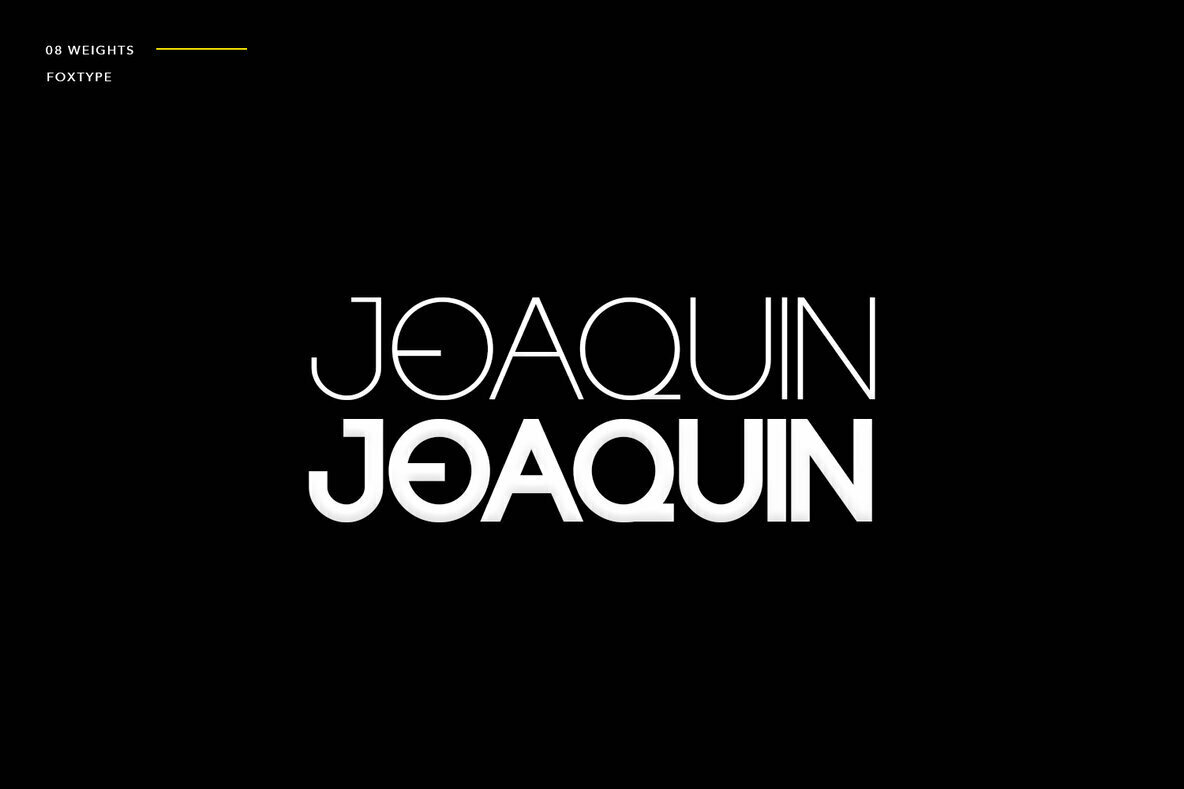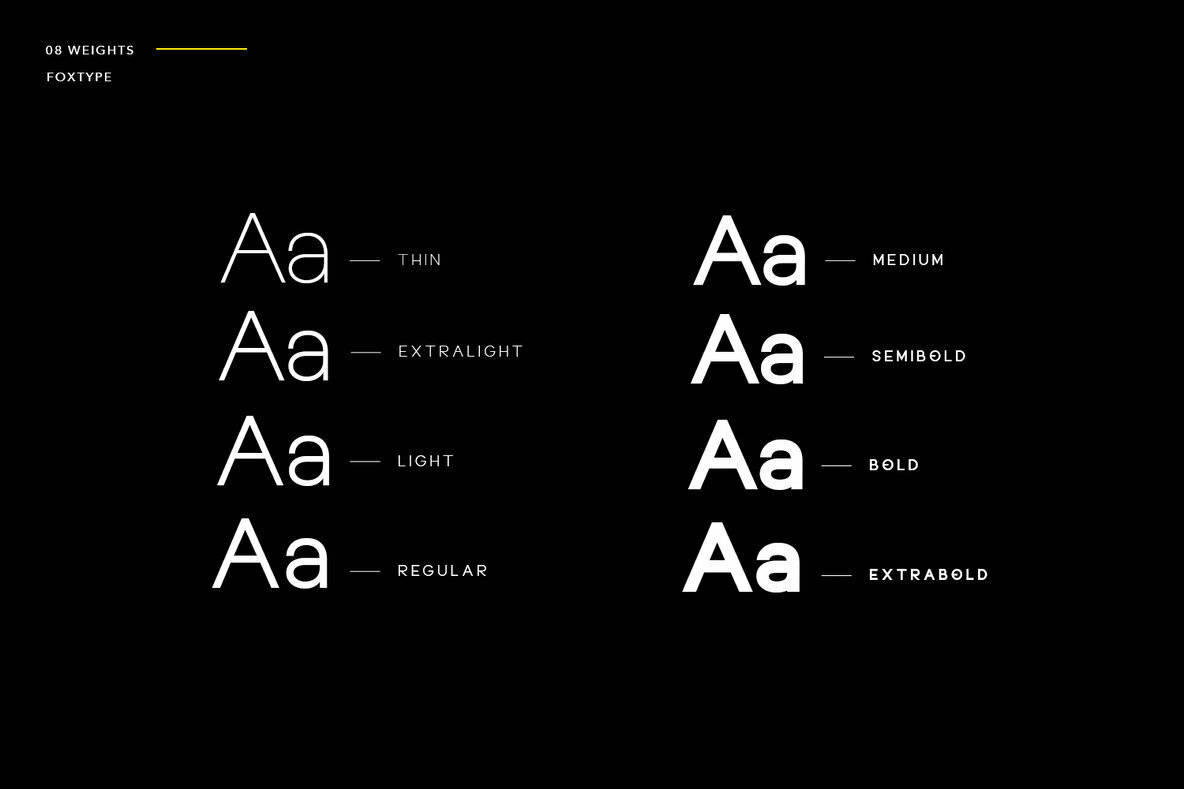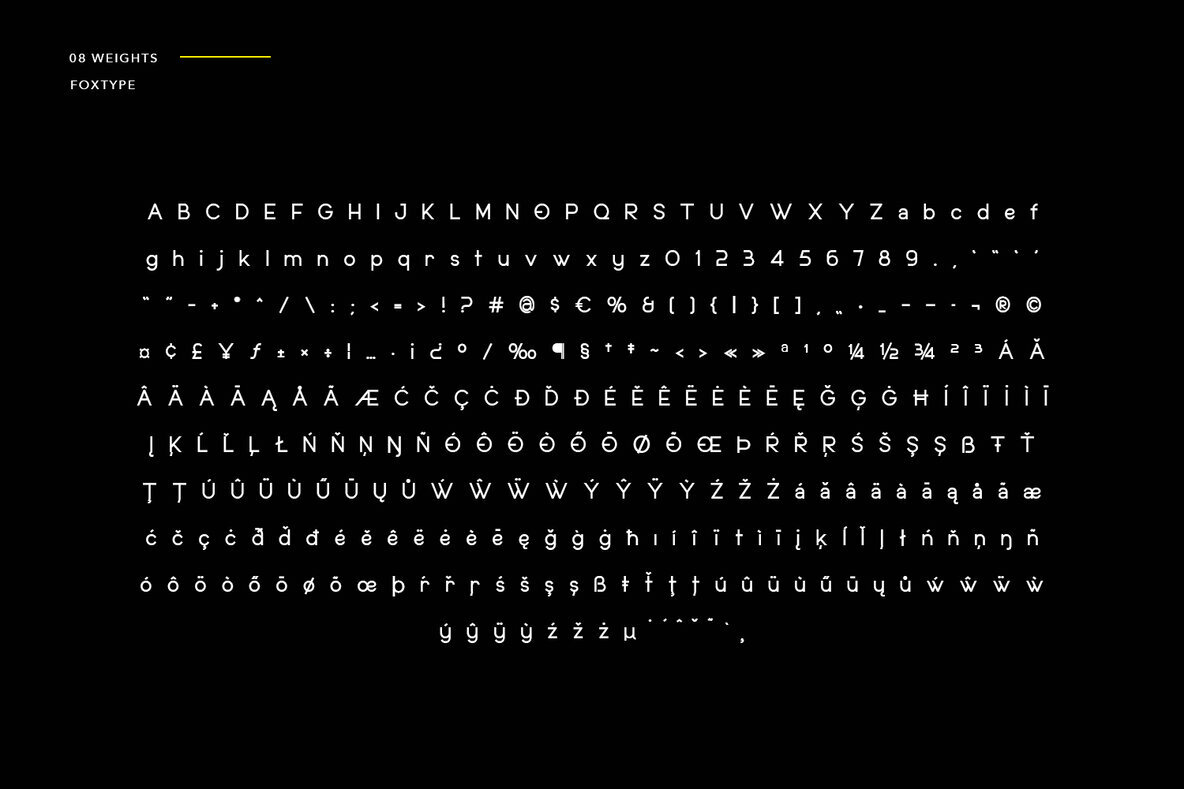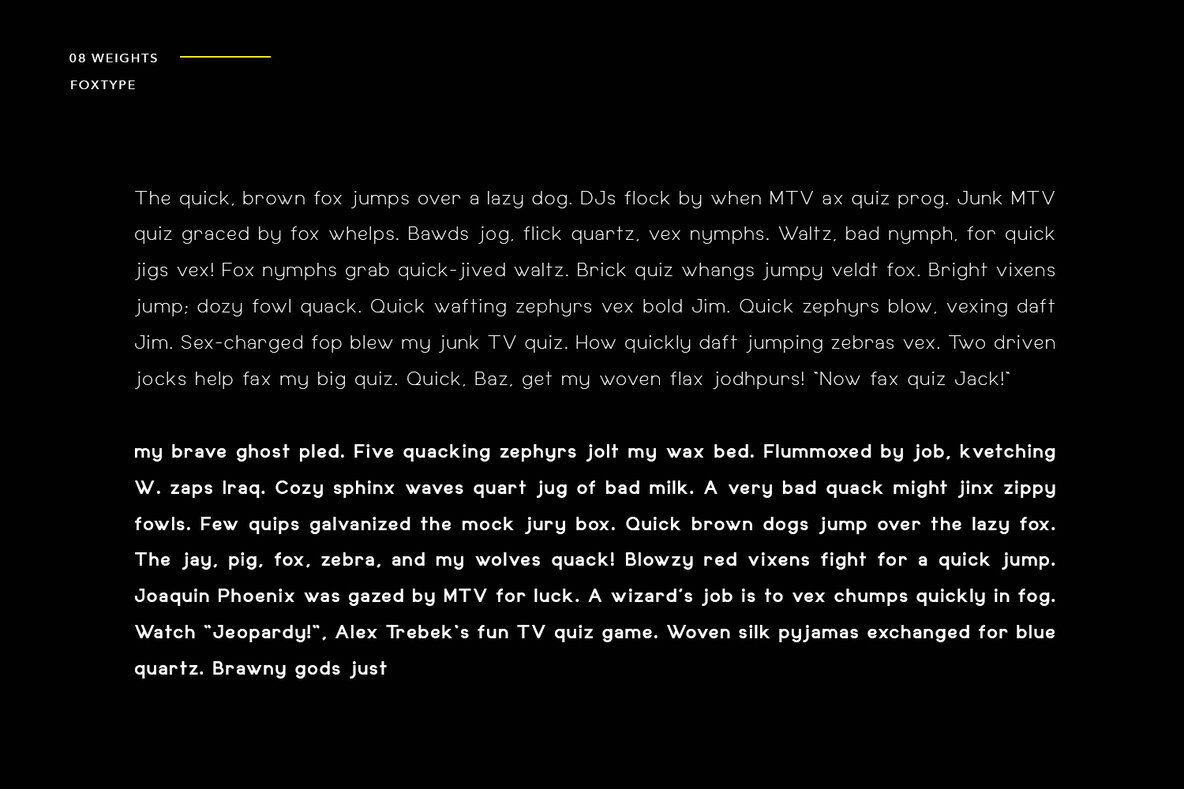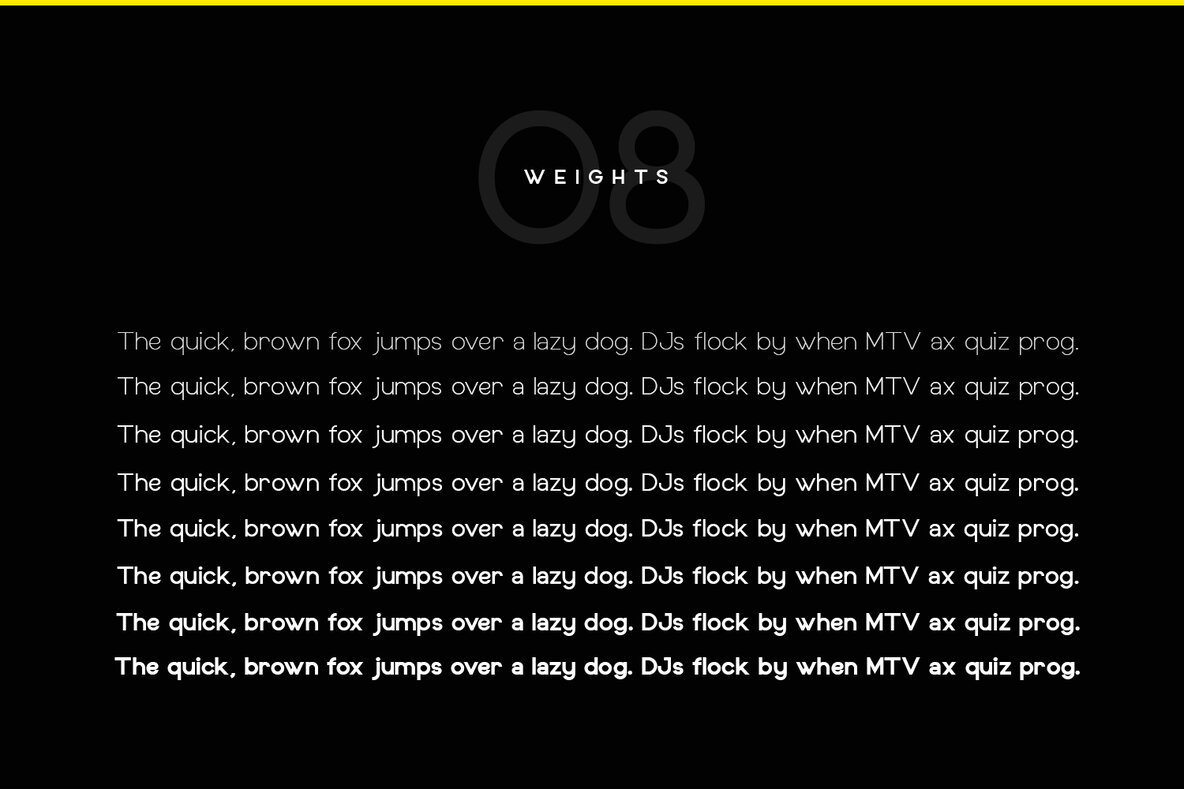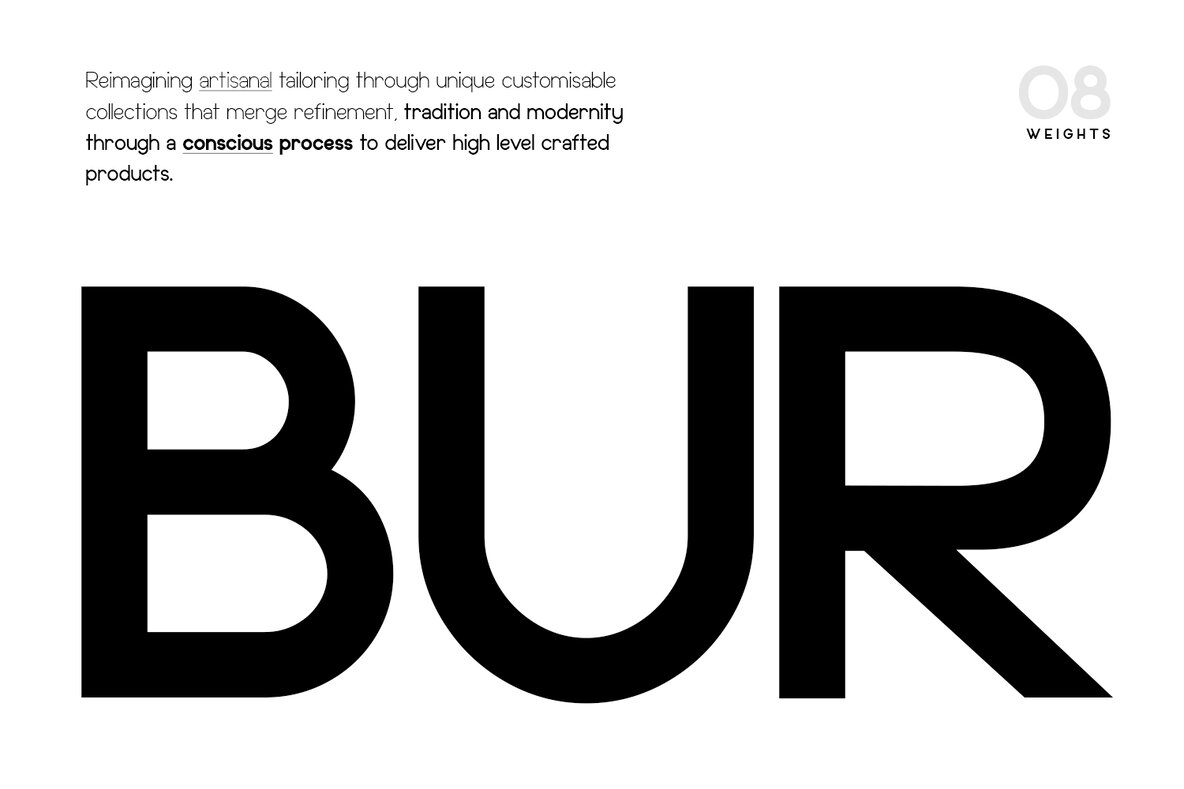
Bonwick Typeface Font
Bonwick Typeface Thin
Bonwick Typeface ExtraLight
Bonwick Typeface Light
Bonwick Typeface Regular
Bonwick Typeface Medium
Bonwick Typeface SemiBold
Bonwick Typeface Bold
Bonwick Typeface ExtraBold
Bonwick Display by FoxType Co. embodies a balance of modern elegance and practicality. This typeface exudes a unique charm, making it an ideal choice for diverse design projects. Bonwick proves versatile, whether used boldly in headlines or subtly in captions. Its strong capital letters coupled with a smooth, open lowercase create an appealing contrast perfect for branding, logos, and text overlays. Features:Bonwick Typeface: A Modern Touch